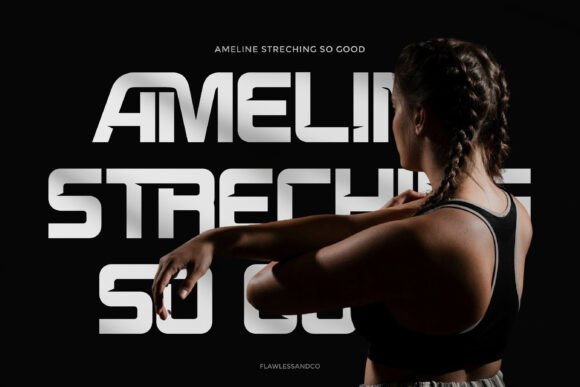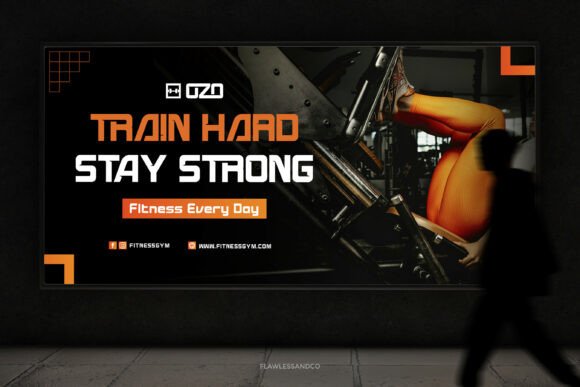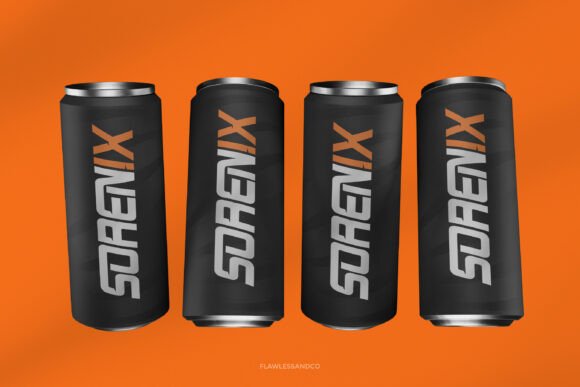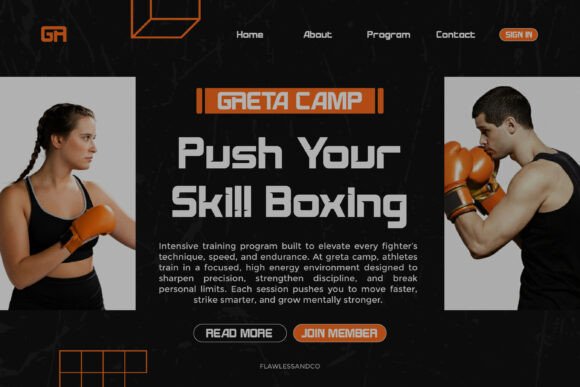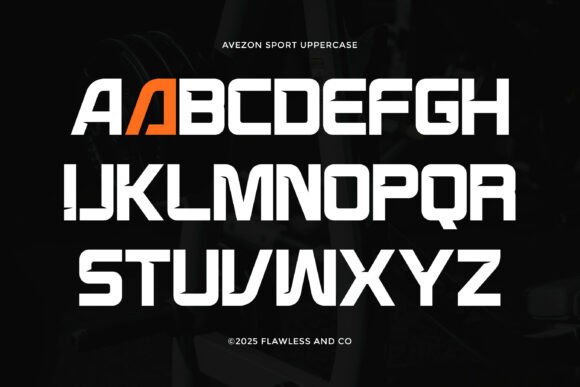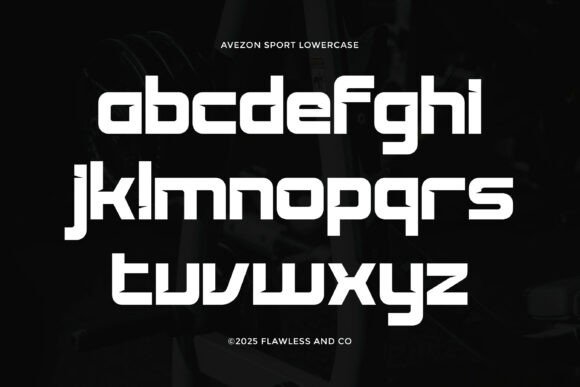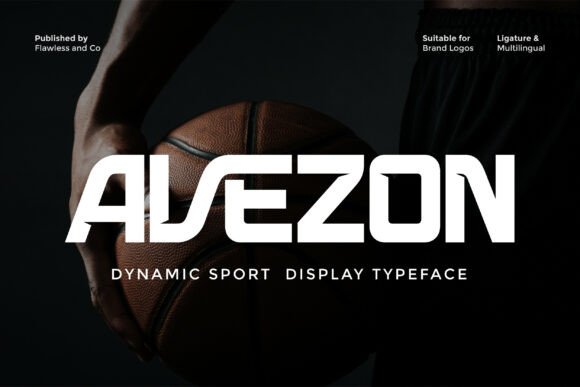
Avezon Font: Unleash the Power of Speed and Strength in Your Visual Identity
In the world of design, fonts play a crucial role in conveying the message and tone of a brand. For sports and fitness-related businesses, a font that exudes energy, speed, and strength is essential to make a lasting impression. This is where Avezon Font comes into play – a powerful sport display font designed to bring a winning edge to every visual identity.
The Design and Features of Avezon Font
Avezon Font is crafted with sharp angles, bold construction, and a dynamic flow that immediately commands attention. Its unique design elements make every word look fast, fierce, and unstoppable, perfect for professional sports branding, high-impact promotional graphics, and any project that requires a competitive edge.
The font’s bold and rugged appearance is perfect for headlines, titles, and short phrases, making it an excellent choice for designers and crafters looking to create a strong visual impact. Avezon’s dynamic flow ensures that the text remains legible, even at larger font sizes, making it versatile for various applications.
Perfect for Sports Branding and Promotional Graphics
Avezon Font is specifically designed for sports and fitness-related businesses, making it an ideal choice for:
- Sports team logos and branding
- Fitness and wellness centers
- Outdoor and adventure gear
- High-energy events and competitions
- Motivational and inspirational quotes
The font’s competitive and fearless look makes it perfect for creating a strong brand identity that resonates with athletes, sports enthusiasts, and individuals who live an active lifestyle.
Why Choose Avezon Font?
Avezon Font offers several benefits that make it an attractive choice for designers and crafters:
- Unique and Memorable: Avezon’s distinctive design ensures that your brand stands out from the competition.
- High-Impact: The font’s bold and dynamic appearance makes it perfect for high-impact promotional graphics and attention-grabbing headlines.
- Versatile: Avezon Font can be used for various applications, from sports branding to motivational quotes and more.
- Easy to Read: Despite its bold appearance, Avezon Font remains legible, even at larger font sizes.
Tips for Using Avezon Font Effectively
To get the most out of Avezon Font, follow these tips:
- Use it sparingly: Avezon Font is designed to make a statement, so use it sparingly to avoid overwhelming the audience.
- Pair it with contrasting fonts: Combine Avezon Font with contrasting fonts to create visual interest and hierarchy.
- Experiment with colors: Avezon Font looks great in bold and bright colors, so don’t be afraid to experiment and find the perfect hue for your brand.
Avezon Font is a powerful sport display font that brings speed, strength, and winning energy to every visual identity. Its unique design, bold construction, and dynamic flow make it perfect for sports branding, promotional graphics, and any project that requires a competitive edge. With its versatility, legibility, and high-impact appearance, Avezon Font is an excellent choice for designers and crafters looking to create a strong visual impact.
Whether you’re a designer, crafter, or business owner, Avezon Font is an excellent addition to your font library. So, unleash the power of Avezon Font and take your visual identity to the next level!